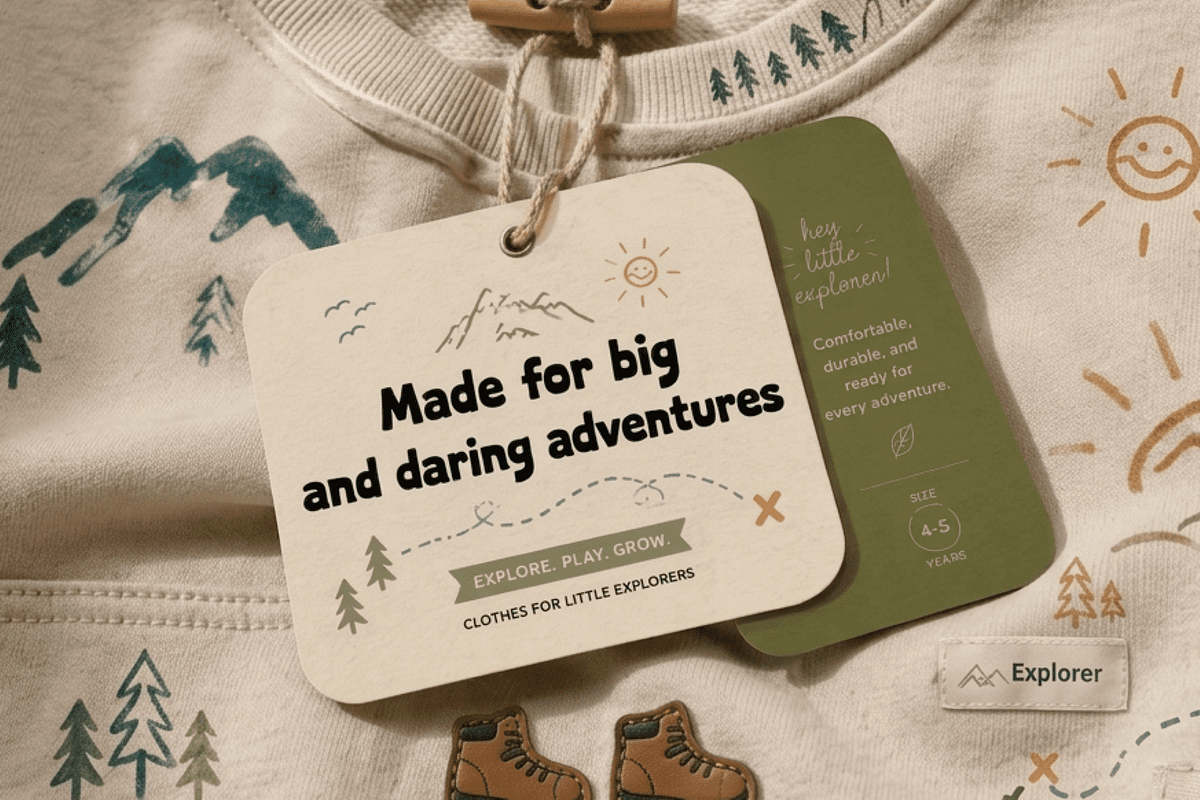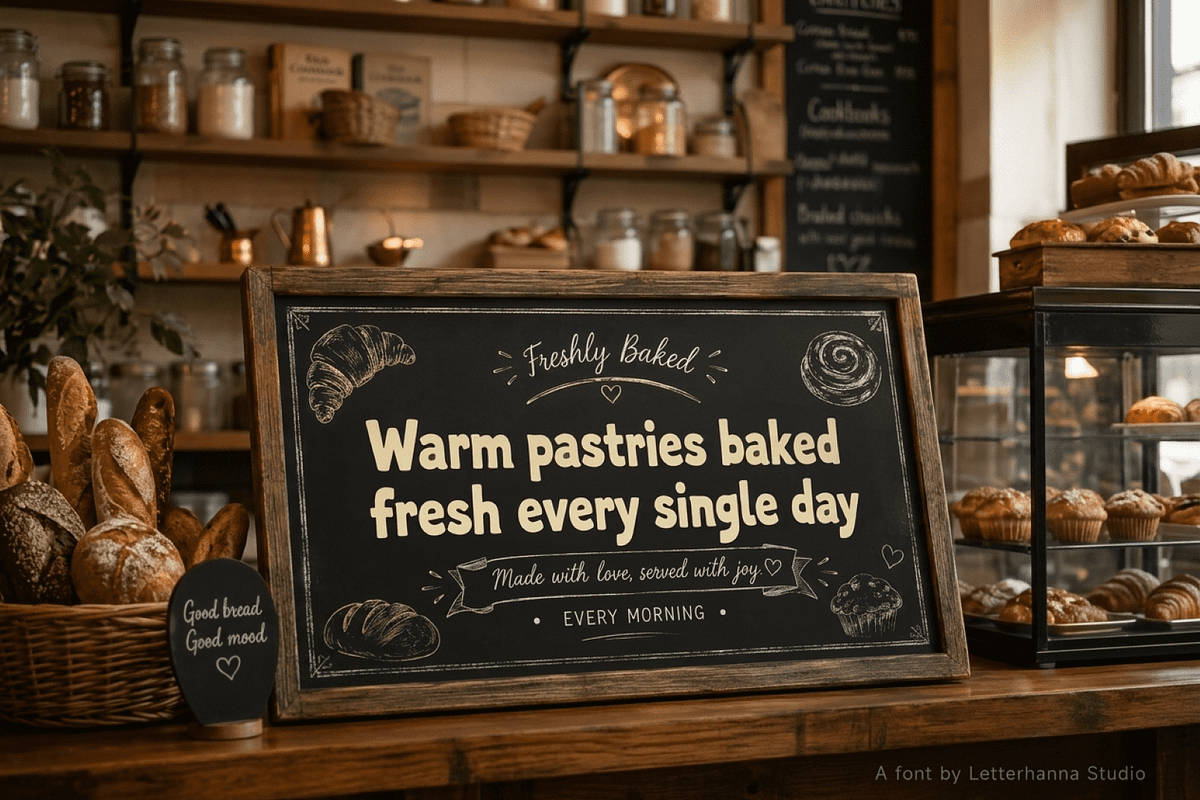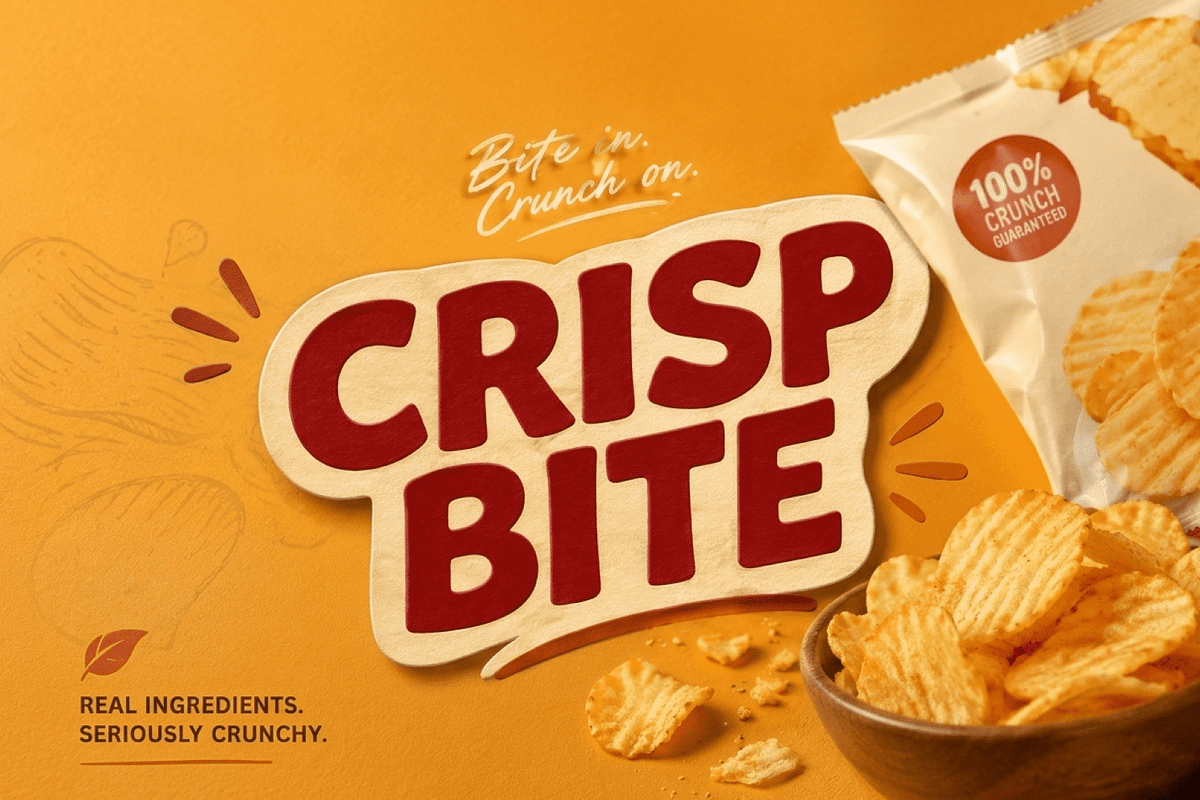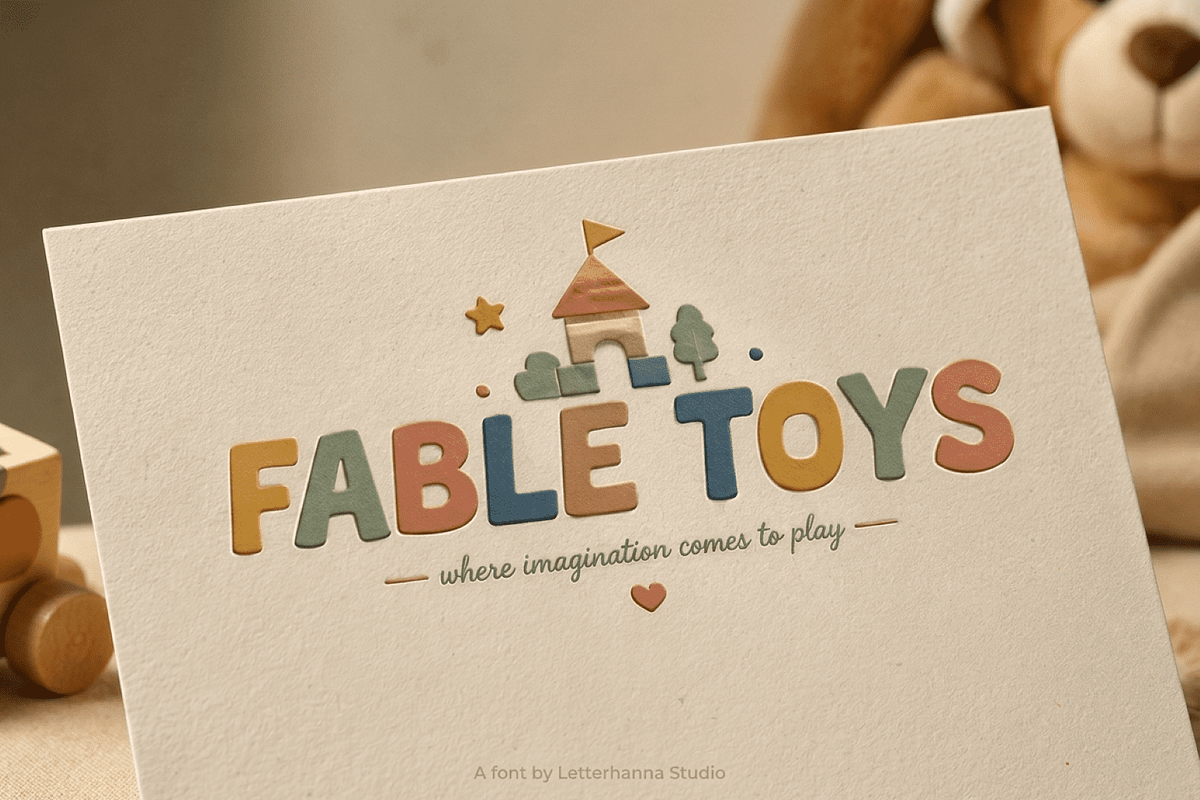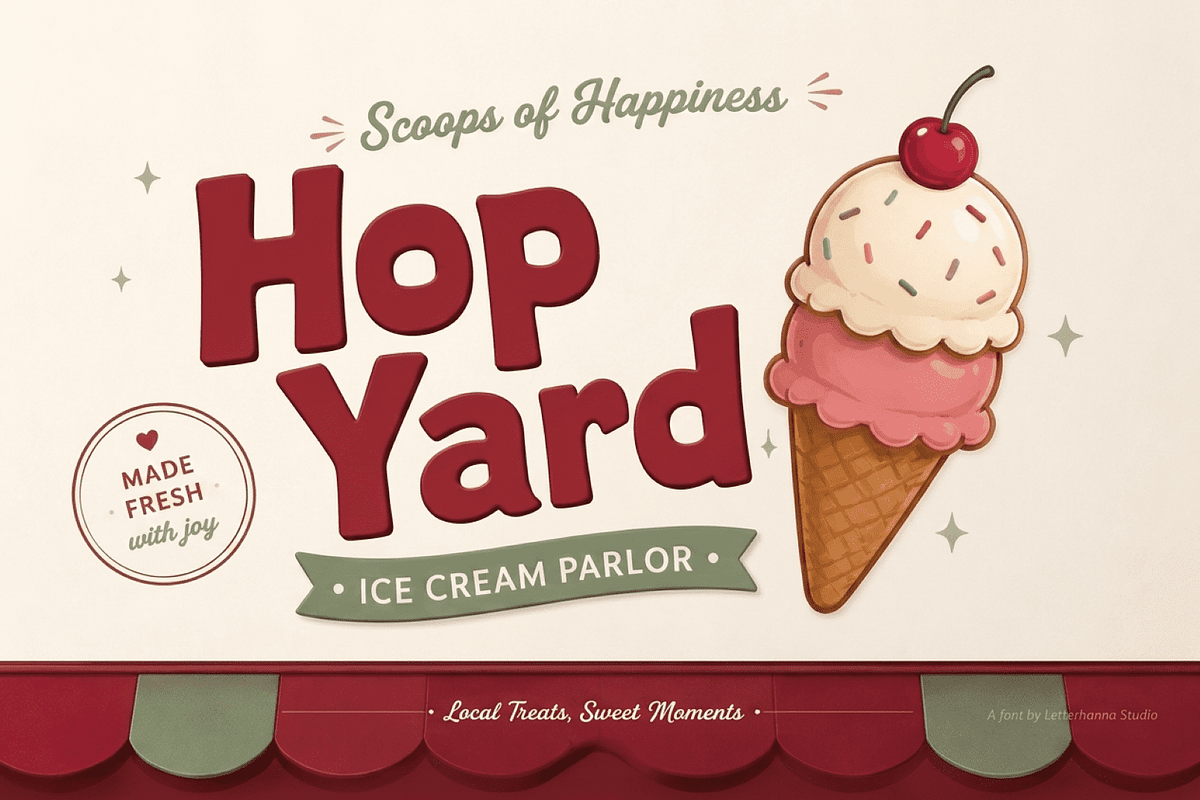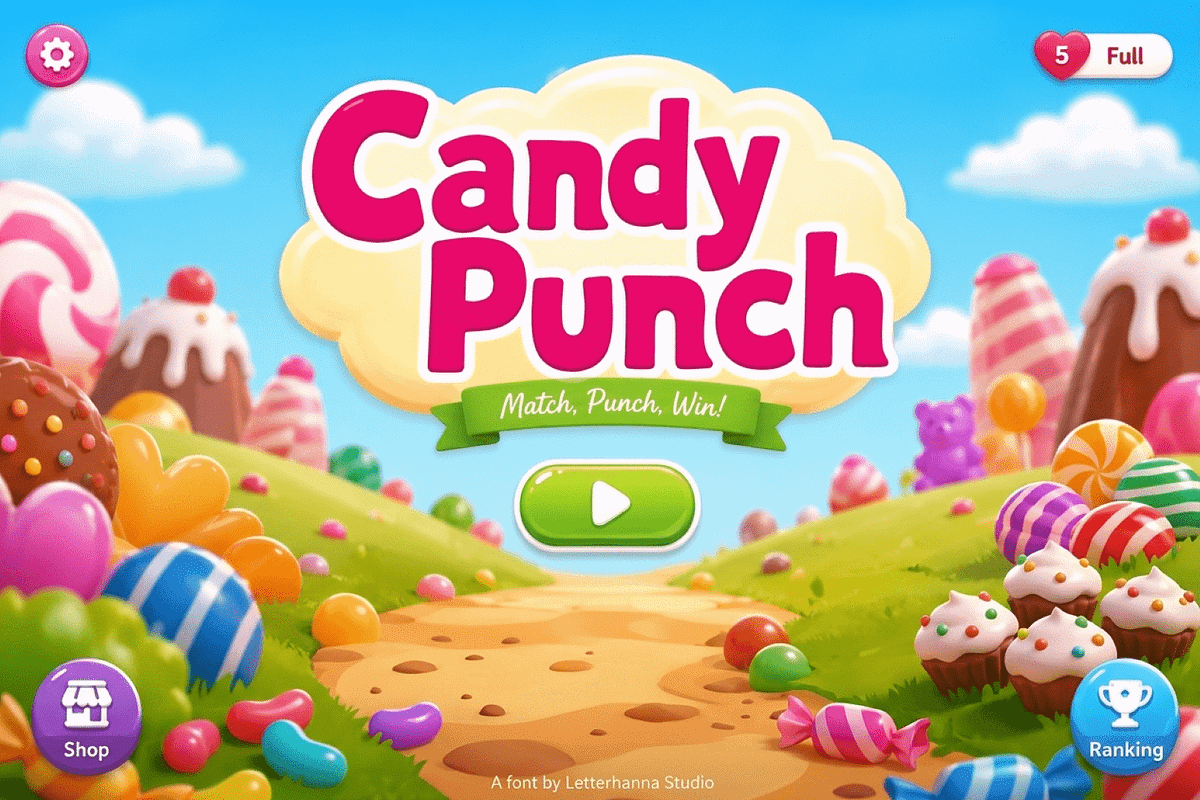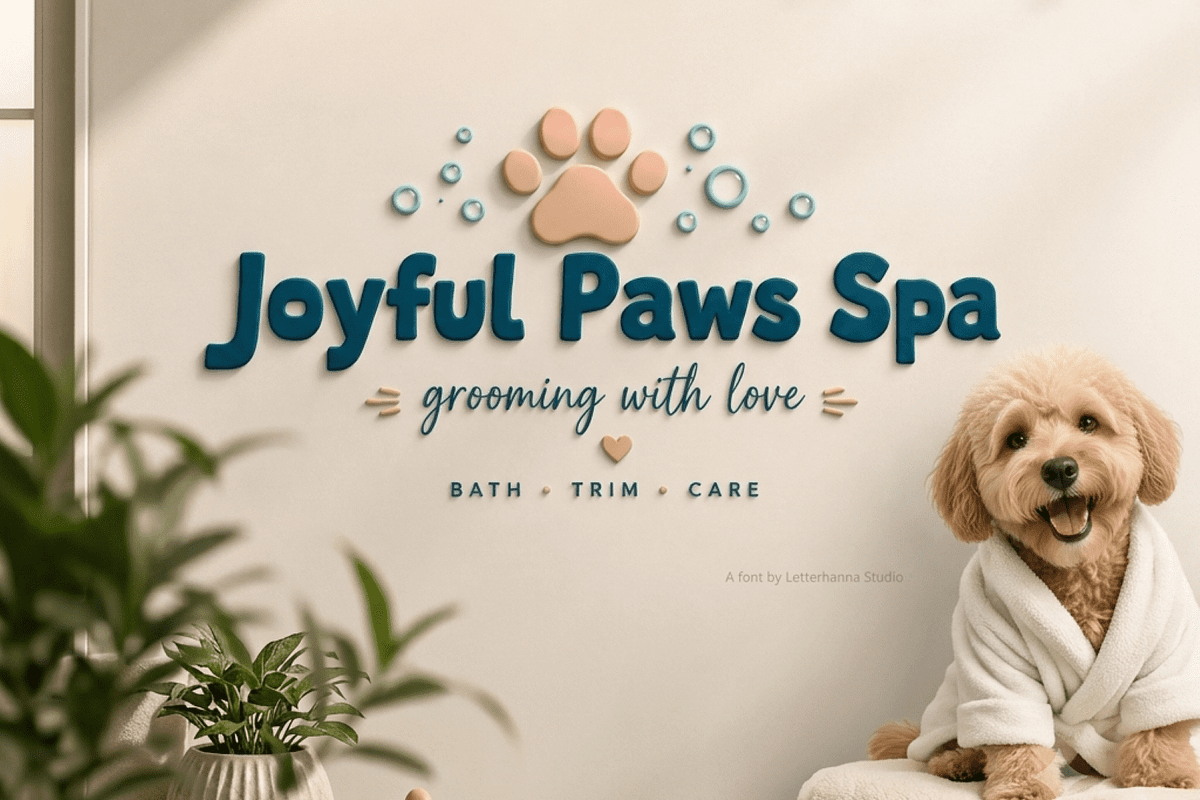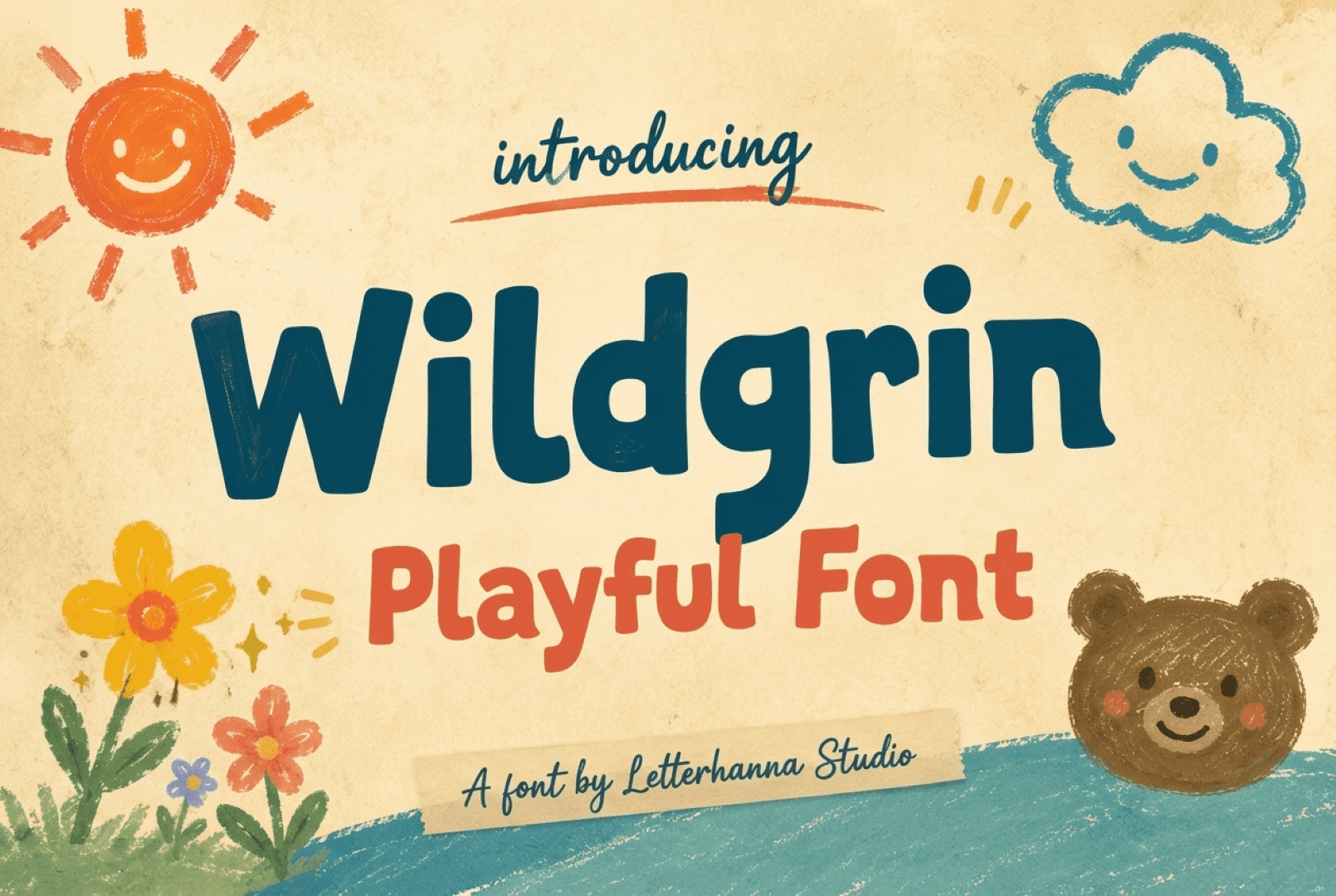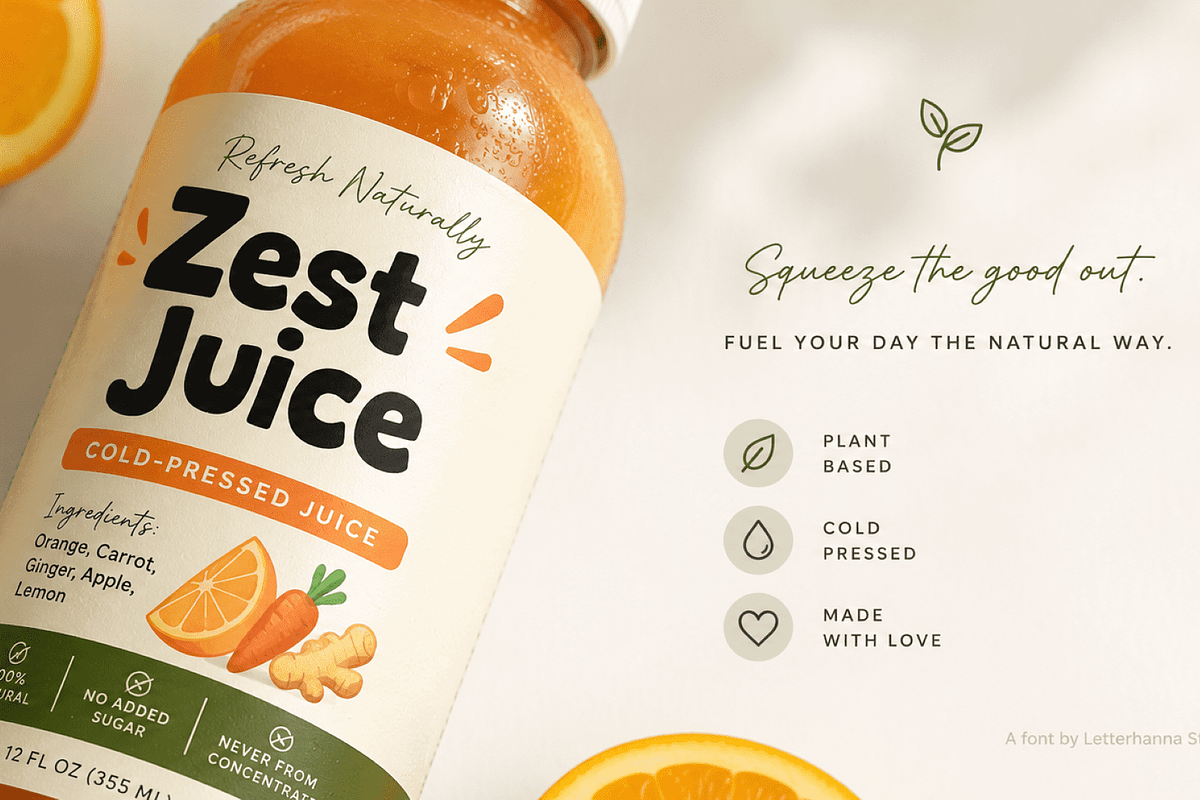
Wildgrin Font: Bold Playful
Some fonts whisper. Wildgrin shouts, laughs, and bounces off the page — and that's exactly the point. If you've been hunting for a playful bold font that feels handmade rather than machine-perfect, Wildgrin is built for that exact gap between "professional" and "boring."
At first glance, Wildgrin reads like something a confident kid scrawled with a fat marker, then someone with a design degree quietly cleaned up. The letterforms are thick, rounded, and slightly uneven in the best way — no two curves are identical, and that irregularity is what keeps it from feeling like a generic rounded sans. The uppercase set leans chunky and confident, almost shouting from the page, while the lowercase set softens into looping, It's a genuine hand lettered display font, built to look drawn by hand rather than stamped out by a machine.
Style-wise, Wildgrin sits in that sweet spot between novelty and usability. It's got the exaggerated personality of a hand-lettered sign — thick strokes, rounded corners, a slight wobble in the baseline — but it stays legible enough to work as a headline font across packaging, social graphics, kids' branding, or party invitations. It's not trying to be elegant. It's not trying to be minimal. It's trying to make you smile before you've even read the word, which is the whole job of good fun typography.
The vibe is loud, warm, and a little mischievous. Picture a lemonade stand sign drawn by someone who's genuinely excited about lemonade. Picture a birthday banner that looks like it was made with love instead of a template. That's Wildgrin's emotional register — cheerful without being childish, casual without looking careless. It's the kind of font that makes a cereal box feel like a Saturday morning cartoon, or a coffee cup sleeve feel like a corner shop with actual personality behind the counter.
Here's a small story about where a font like this earns its keep. Imagine a home baker who's been selling banana bread out of her kitchen for two years. Word of mouth got her this far, but she wants a real brand now — labels, a logo, maybe a little sign for the farmers market table. She doesn't want anything sleek and corporate; she wants something that feels like her, like the little note she scribbles on the box lid every time. She drops "Banana Bread Co" into Wildgrin, and suddenly that handwritten note becomes a brand mark. The chunky curves and slightly wobbly baseline do the emotional work that a polished sans-serif never could — they say "made with hands, not machines" before a single ingredient is even listed.
That's really what a quirky font design like Wildgrin is for. It's not about decoration; it's about translating a feeling — warmth, playfulness, approachability — into something visual that a customer reads in half a second and instantly trusts. Bakeries, ice cream shops, kids' apparel lines, toy brands, birthday party planners, summer camps, juice bars, skate shops — anywhere a brand wants to feel like a person and not a corporation, Wildgrin fits right in.
Practically speaking, the typeface holds up across formats. It's bold enough to anchor a poster from across a room, but the rounded terminals keep it from feeling aggressive at smaller sizes, which makes it just as comfortable on a product label or an Instagram caption graphic. Pair it with a soft, muted color palette for a gentler feel, or throw it against bright candy colors for maximum energy — Wildgrin flexes either way without losing its core personality.